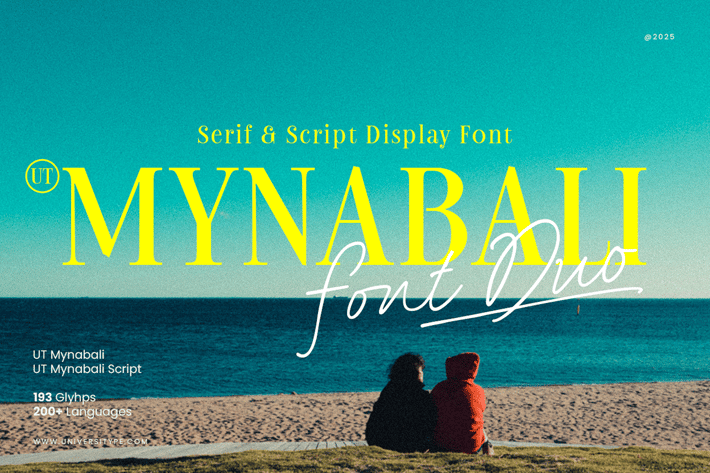
Mynabali Font Duo
Immerse yourself in the creativity of Balinese culture with the enchanting Mynabali Font Duo. This intriguing blend of exquisite serif and evocative script embodies elegance, class and authenticity all in one, presenting a peerless symmetry of weightiness and flow.
Imprinted with the vibrant richness of Balinese artwork, Mynabali infuses a sense of heritage and yet effortlessly complements modern aesthetics. It aspires to lift your creations, whether it is a luxurious brand mark, sleek editorial layout, or sophisticated invitation card, adding a hint of uniqueness and timeless sophistication.
Mynabali Font Duo caters to a wide spectrum of audiences:
- Designers who aspire for a font duo that seamlessly combines structure with fluidity
- High-end brands and fashion labels that seek an essence of luxury and eloquence
- Event planners who want to add a touch of elegance and authenticity
- Editorial designers, book cover artists, and magazine creatives craving unique typography
- Admirers of typefaces that exude both sophistication and organic beauty
Key highlights of the Mynabali Font Duo are its striking mix of detailed serif and handwriting-inspired script, elegant ligatures, stylistic alternates and comprehensive multilingual support. The typeface is timeless and adaptable, making it suitable for a variety of applications including branding, print and digital projects.
The magic behind the design of Mynabali takes inspiration from Patra Punggal - a fascinating Balinese carving motif celebrated for its intricate yet harmoniously assembled details. The stern beauty of temple engravings is mirrored in the serif, while the fluid script echoes the spontaneity of ceremonial calligraphy. The result? A fairy-tale mix of precision and whimsy that injects character and depth into any undertaking.
Its versatility makes it perfect for branding and logo design, especially for high-end fashion, beauty and boutique brands. Its distinctive appeal makes it excellent for usage in editorial design including magazines and book covers. Not to forget, it adds a touch of personality when used for wedding and event invitations. From packaging labels to social media and websites, Mynabali ramps up visual storytelling with its elegance and appeal.